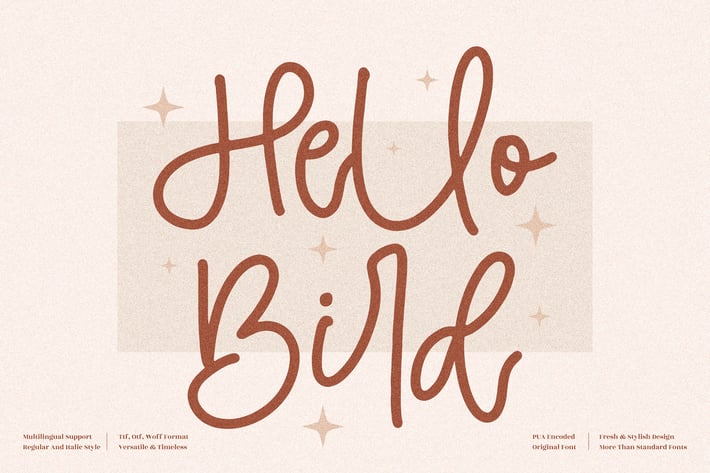
Hello Bird Handwritten Font
Hello Bird is a playful handwritten font that combines natural flow with charming character. Its friendly curves and casual style make it perfect for adding a personal touch to your designs. With versatility and warmth, Hello Bird is ideal for creative projects that seek both fun and elegance.
+ Handwritten style
+ Uppercase, lowercase, numbers & punctuation
+ Alternates & ligatures
+ Greeting cards & thank you notes
+ Wedding invitations & stationery
+ Social media posts & quotes
+ Branding & logo design
+ Lifestyle & personal projects
+ Packaging & product design
_Add a playful charm to your designs with Hello Bird — a handwritten font full of warmth and personality.